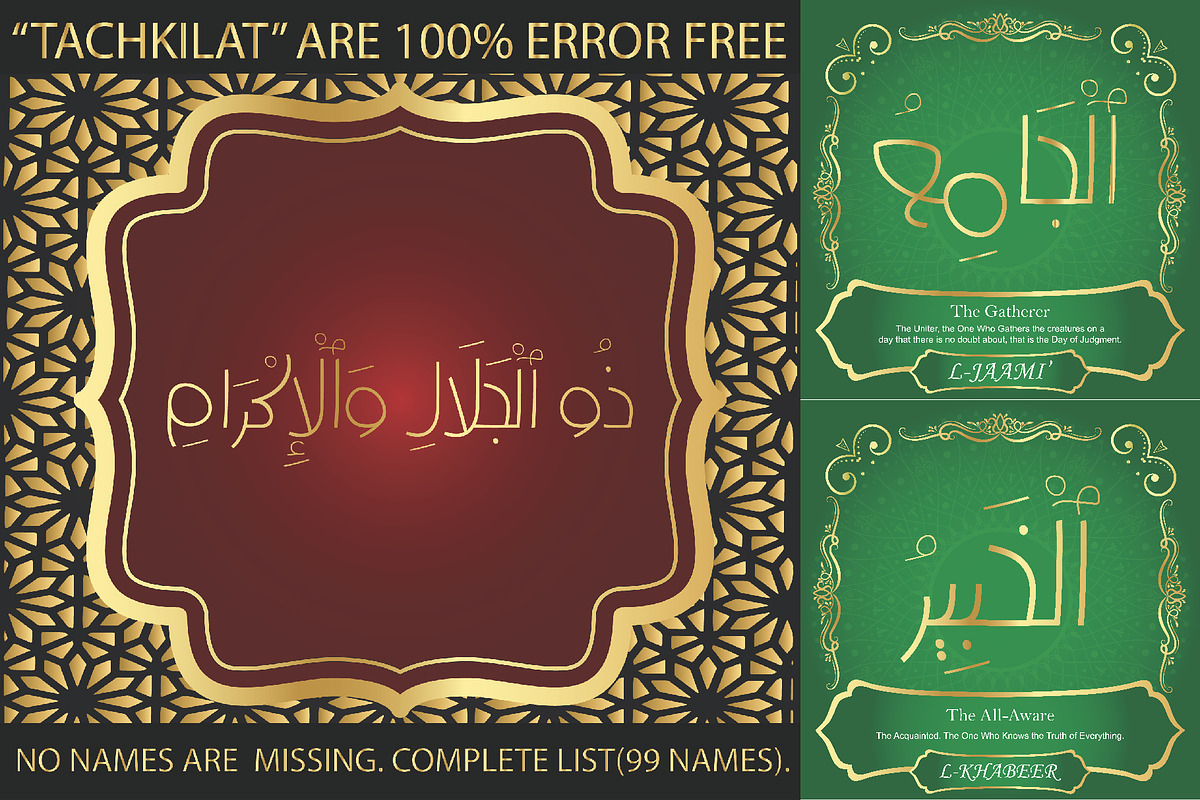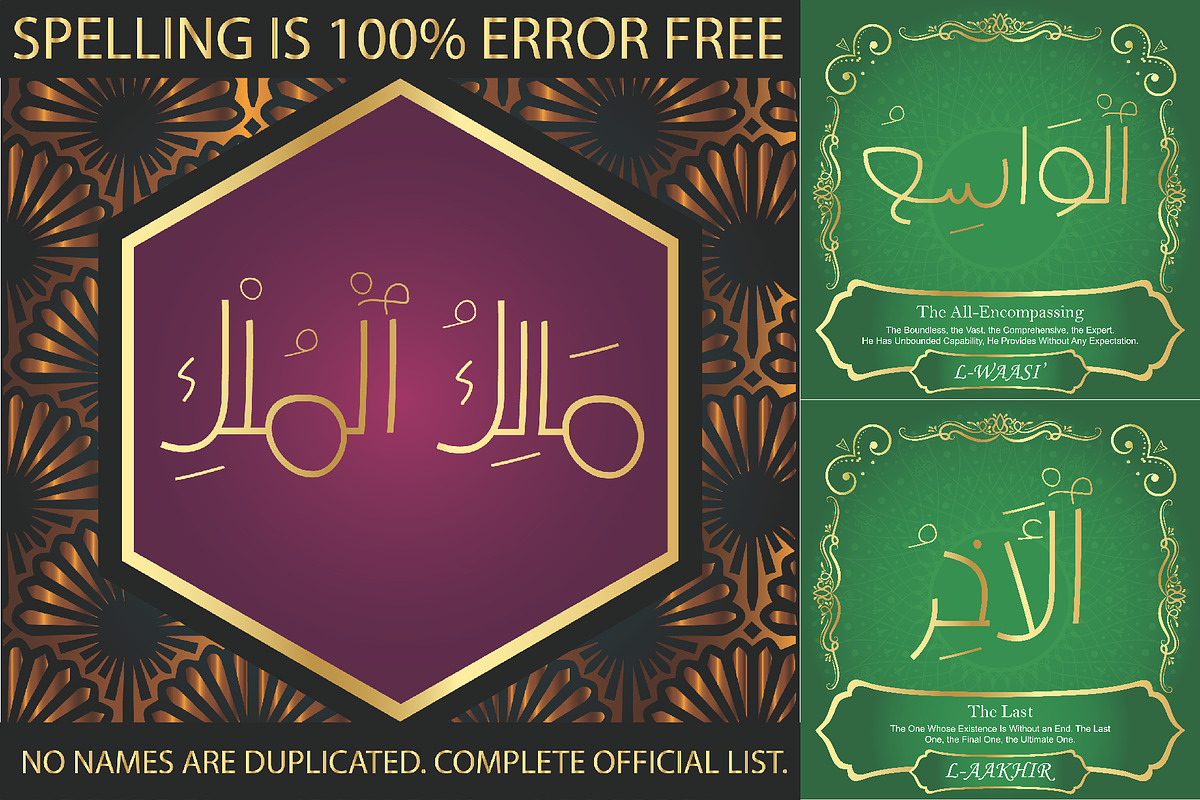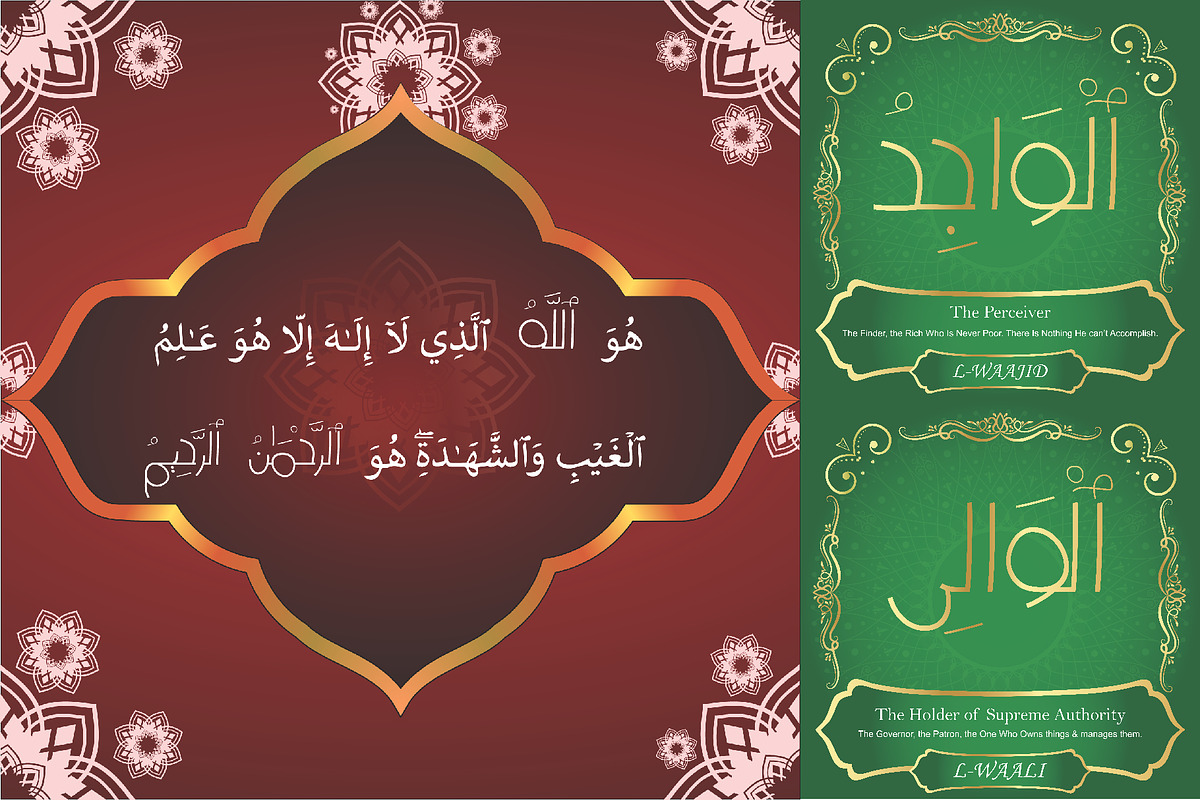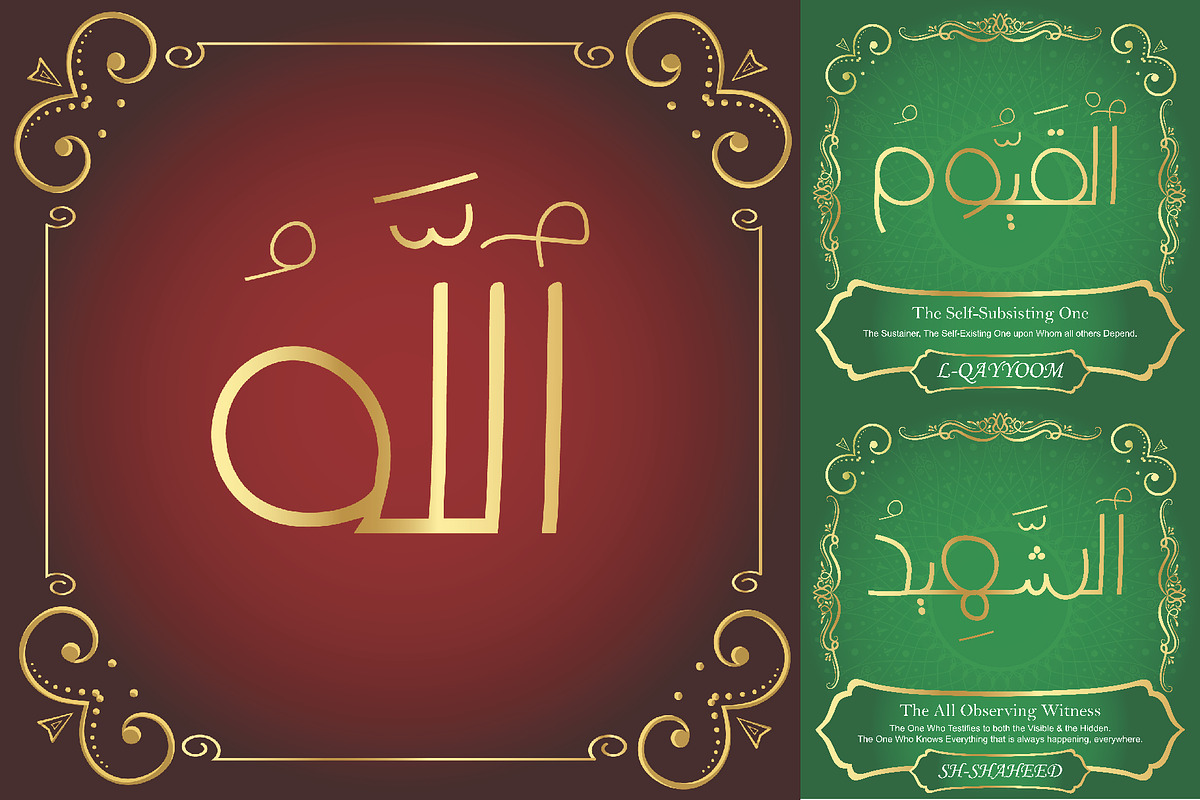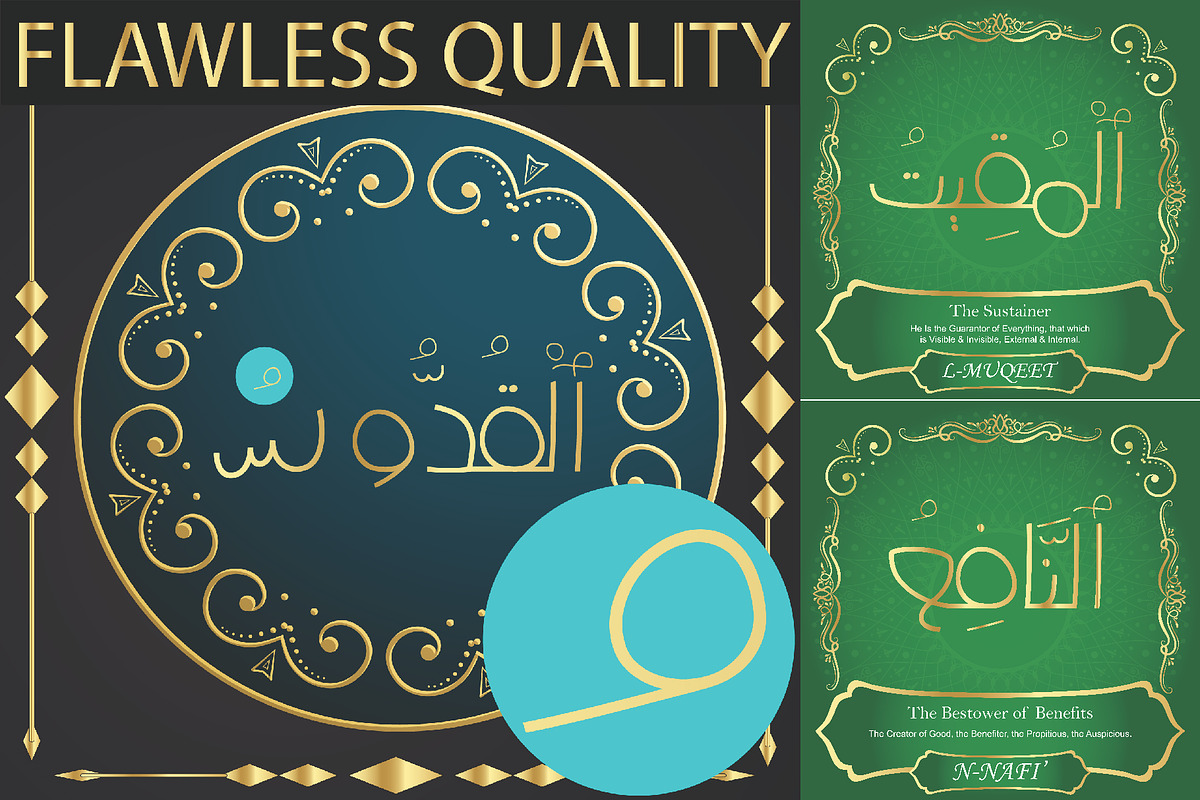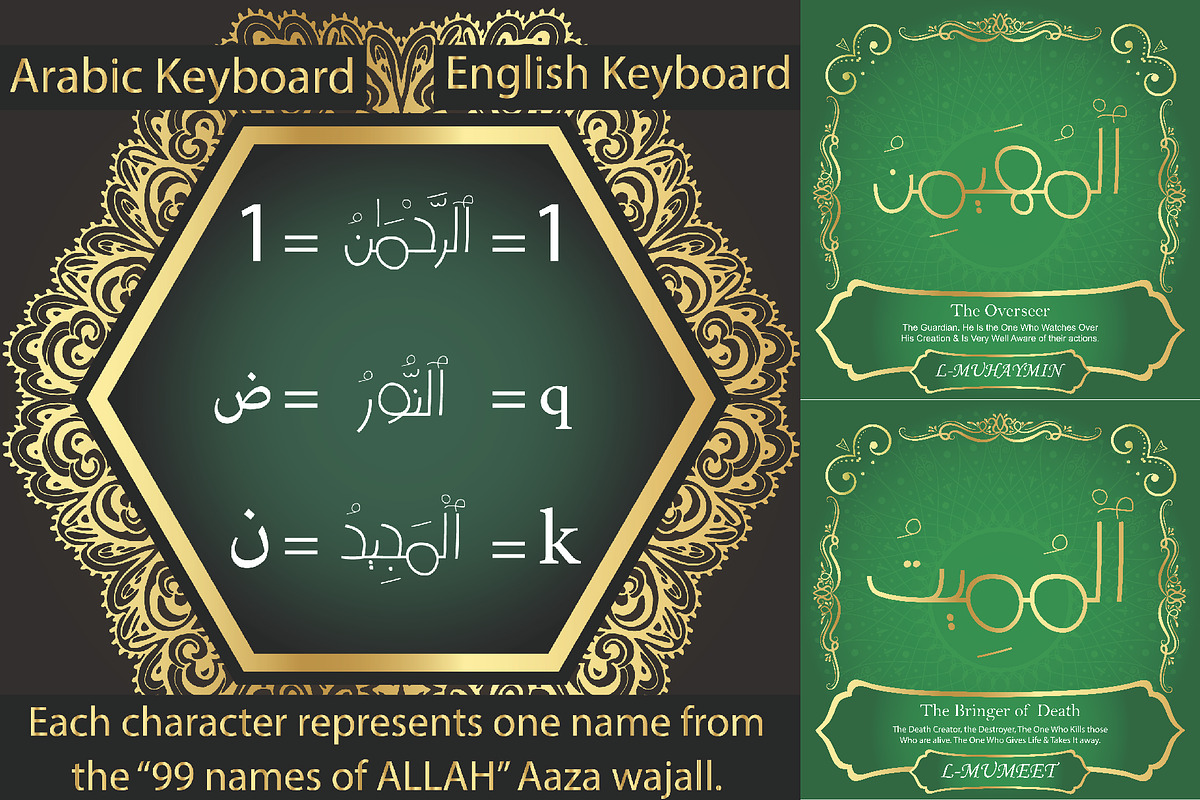
99 Names of ALLAH "Kids"
We have transformed the “99 names of ALLAH” into a font. That means each key on your keyboard represents 1 of the 99 names of ALLAH Aaza Wajal. The fonts work with both the English and Arabic Keyboards.
We call this Calligraphy "Kids" because it looks as if a child is writing the names. The first "Alef" has a "hamzit wasel", this indicates that the name can be pronounced both as "AR-RAHMAAN" or "R-RAHMAN" (in the zip file you will find a pdf file explaining the differences in the "harakat", pronunciation and spelling according to the Holy Quran). Some of the letters in the calligraphy are unusually big, they look as a child is writing them. No decorative letters are used in this calligraphy.
Purpose & use:
Writers: Highlight the names in your texts in beautiful Islamic calligraphy.
Editors: Use with kinetic typography templates (AE) & editing software.
Designers: The very small details in the names does not affect the quality. Rest assured it is flawless.
The MOST IMPORTANT THING about this list is that all the names are 100% ERROR FREE, and you can USE THEM WITH YOUR EYES CLOSED. All the “Tachkilat” are 100% ERROR FREE, all the "Spelling" is 100% ERROR FREE, and they all have been written in accordance with the Holy Quran. No names are missing and no names are duplicated. The list is complete "99 names +1". The +1 is the name “ALLAH” 'Aza wajal.
Another important thing is how we use the decorative letters. In every font you will see small decorative letters, these letters are used only in accordance with their respective letters to indicate pronunciation & we don't include them randomly. That means "mim" on top or below the letter "mim", "sin" on top or below the letter "sin", and so on and so forth.